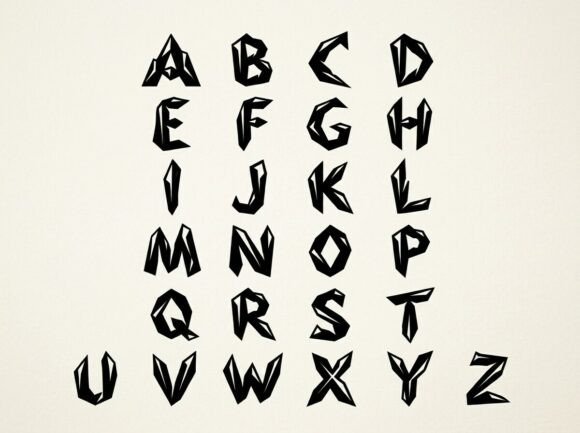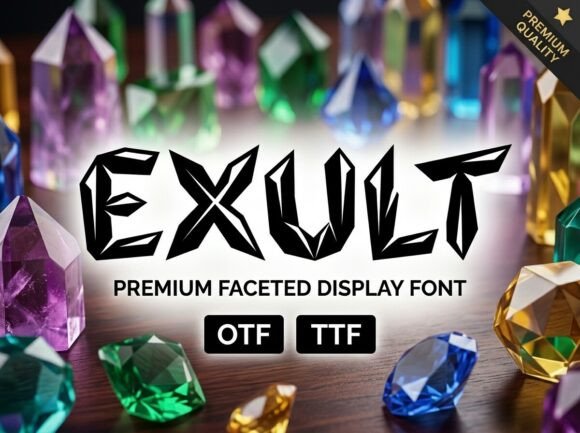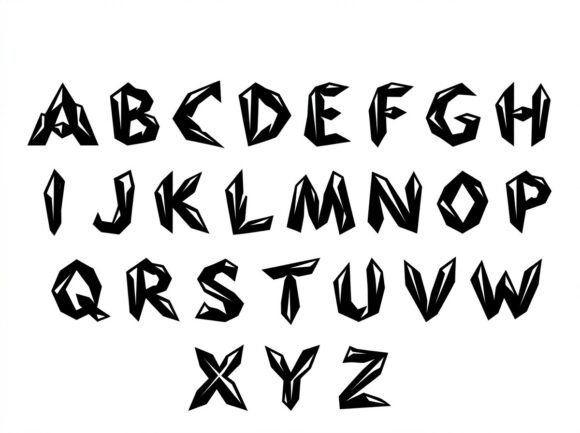
Introducing Exult Font: The Ultimate Decorative Display Font for Creators
Are you tired of using the same old fonts for your creative projects? Look no further than Exult Font, a stunning decorative display font designed to make a statement. With its unique artistic elements and strong visual personality, this font is perfect for creators who want to break away from the ordinary and add a touch of elegance to their work.
What Makes Exult Font Special?
Exult Font is a versatile font that can be used for a variety of creative projects, including bold headlines, artistic logos, and creative packaging. Its professional and polished finish makes it suitable for high-end designs, while its unique artistic elements add a touch of personality to any project.
Key Features of Exult Font
- Unique Artistic Elements: Exult Font features unique artistic elements that set it apart from other fonts. Each letter is carefully crafted to make a statement and add a touch of elegance to your designs.
- Strong Visual Personality: This font has a strong visual personality that makes it perfect for creators who want to add a touch of personality to their work.
- Versatile: Exult Font is versatile enough for use in a variety of creative projects, including bold headlines, artistic logos, and creative packaging.
- Professional and Polished Finish: This font has a professional and polished finish that makes it suitable for high-end designs.
Why Choose Exult Font?
Exult Font is the perfect choice for creators who want to add a touch of elegance and personality to their work. Its unique artistic elements and strong visual personality make it perfect for a variety of creative projects, including:
- Headlines: Use Exult Font to create bold and eye-catching headlines that grab attention.
- Logos: Create artistic logos that make a statement and add a touch of personality to your brand.
- Packaging: Use Exult Font to create creative and eye-catching packaging that stands out on store shelves.
Tips for Using Exult Font
Here are some tips for using Exult Font effectively:
- Use it sparingly: Exult Font is a decorative display font, so use it sparingly to make a statement.
- Pair it with a simple font: Pair Exult Font with a simple font to create contrast and add visual interest to your design.
- Experiment with different colors: Experiment with different colors to add depth and visual interest to your design.
Exult Font is a stunning decorative display font that is perfect for creators who want to add a touch of elegance and personality to their work. With its unique artistic elements and strong visual personality, this font is versatile enough for use in a variety of creative projects. Whether you’re a designer, craft, or DIY enthusiast, Exult Font is a great choice for anyone looking to make a statement.